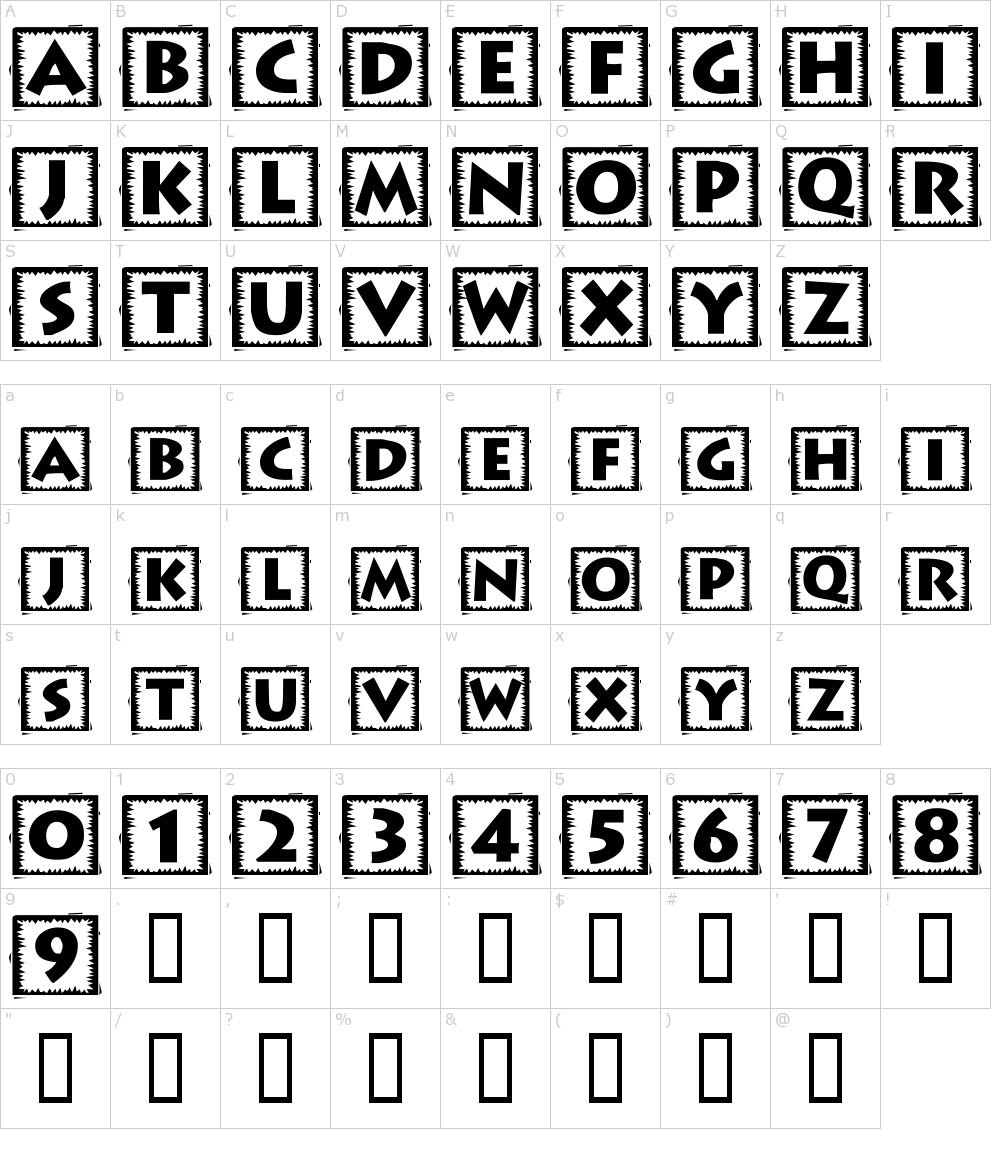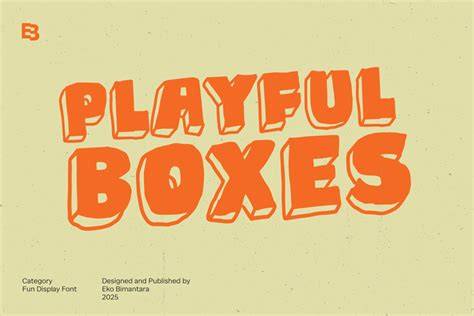
Fonts In Boxes - A Trendy New Way To Customize Your Designs
It's 2023, and with that comes a lot of changes to the way we create and customize our designs. One of the most popular trends in the world of design is the use of fonts in boxes. What is fonts in boxes? Well, it's a technique that allows you to add a unique, creative touch to your design work by using a variety of fonts and typefaces in a box-like structure. It's a great way to add a personal touch to your work while still keeping it professional and stylish.
Fonts in boxes have become increasingly popular over the past few years, and with good reason. This technique allows you to customize your design with a wide range of typefaces, from classic fonts like Times New Roman to more modern fonts like Helvetica and Arial. With fonts in boxes, you can create a unique look for your design that will stand out from the crowd. Plus, it's a great way to create a professional and modern look for your work.
One of the best things about fonts in boxes is that it's incredibly easy to use. You can simply choose the fonts you want to use in the box, and then you can easily adjust the size and color of the fonts to suit your needs. You can also mix and match fonts to create a unique look that will make your design stand out. Plus, this technique is also great for creating a uniform look across all of your designs, allowing you to easily create cohesive designs that look great.
Fonts in boxes are a great way to make your designs stand out, and they're also a great way to make your work look more professional and modern. With this technique, you can create a unique look for your designs that will help you stand out from the crowd. Plus, it's a great way to create a uniform look for your work that will make it look more professional and modern.
Getting Started with Fonts in Boxes
If you're looking to get started with fonts in boxes, there are a few things you should keep in mind. First, make sure you choose the right typefaces for your design. There are a variety of fonts available, so make sure you choose the ones that are best suited for your project. Additionally, make sure you adjust the size and color of the fonts to suit your needs. Finally, make sure you mix and match fonts to create a unique look for your design.
Once you've chosen the right typefaces and adjusted the size and color of the fonts, you can start to create your fonts in boxes. The process is fairly simple, and you can easily create a unique look for your design that will help it stand out from the crowd. With fonts in boxes, you can create a look that's both creative and professional, allowing you to create a design that's sure to impress.
Fonts in boxes are an incredibly popular trend in the world of design, and for good reason. This technique allows you to customize your design with a wide range of typefaces, from classic fonts like Times New Roman to modern fonts like Helvetica and Arial. Plus, it's incredibly easy to use, allowing you to quickly create a unique look for your designs that will help them stand out from the crowd. With fonts in boxes, you can create a look that's both creative and professional, allowing you to create designs that are sure to impress.